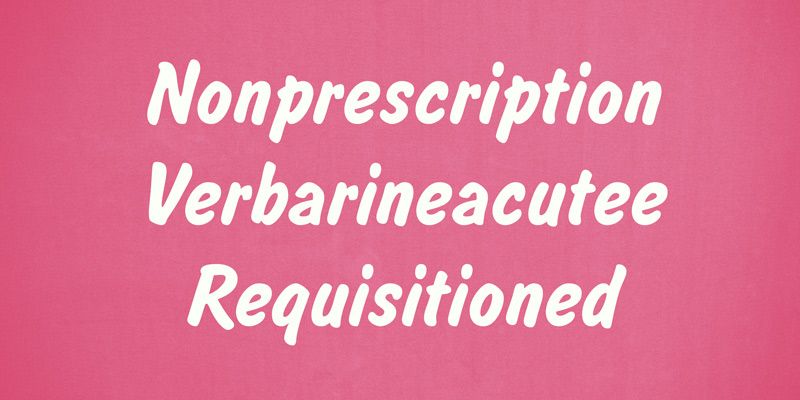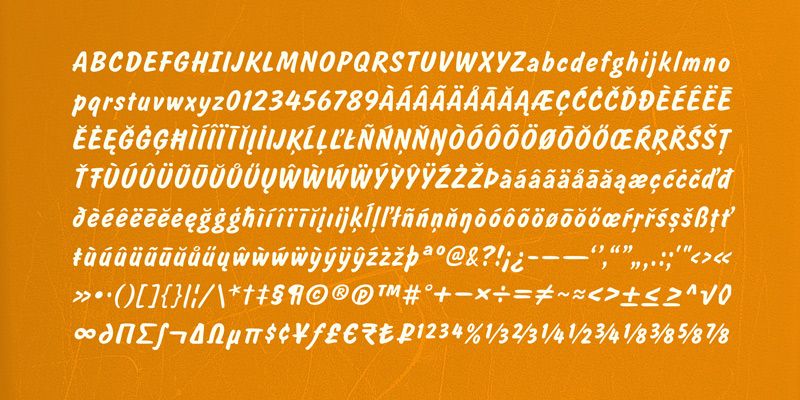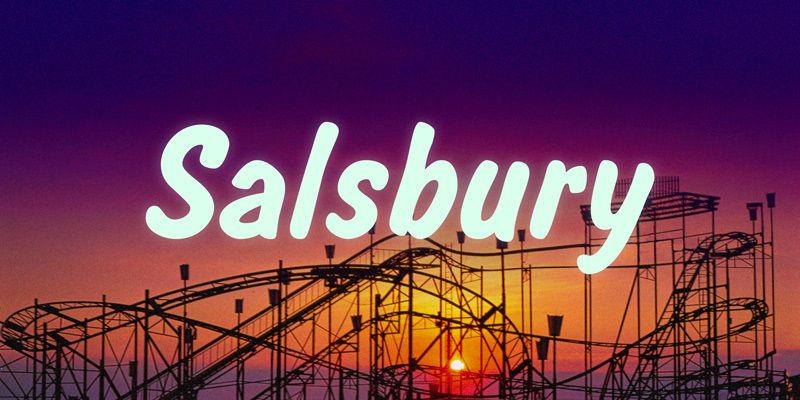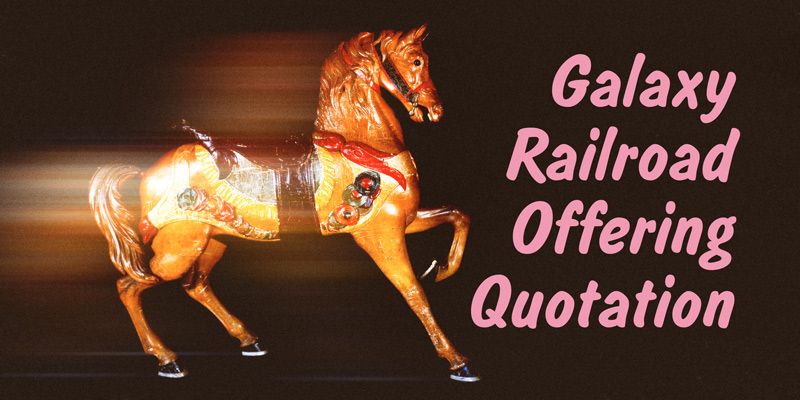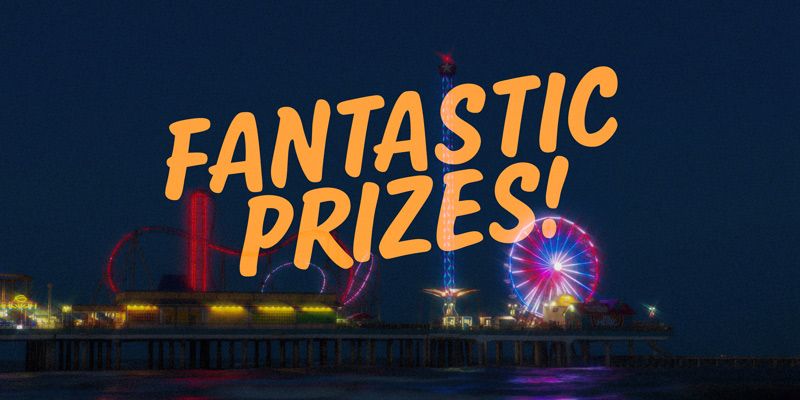
Salsbury has the lively, slightly uneven appearance of a hand-cut screen print. The letters feel assembled for a sign or poster, giving a phrase the cheerful urgency of a carnival announcement. It can bring that atmosphere to fairground graphics, food stalls, seasonal promotions, event posters, and playful package fronts without requiring a hand-lettered original for each new message. A ride name, daily special, or event headline can seem freshly made even when the wording changes often. Its rough-cut character feels especially apt against flat color and simple printed shapes.